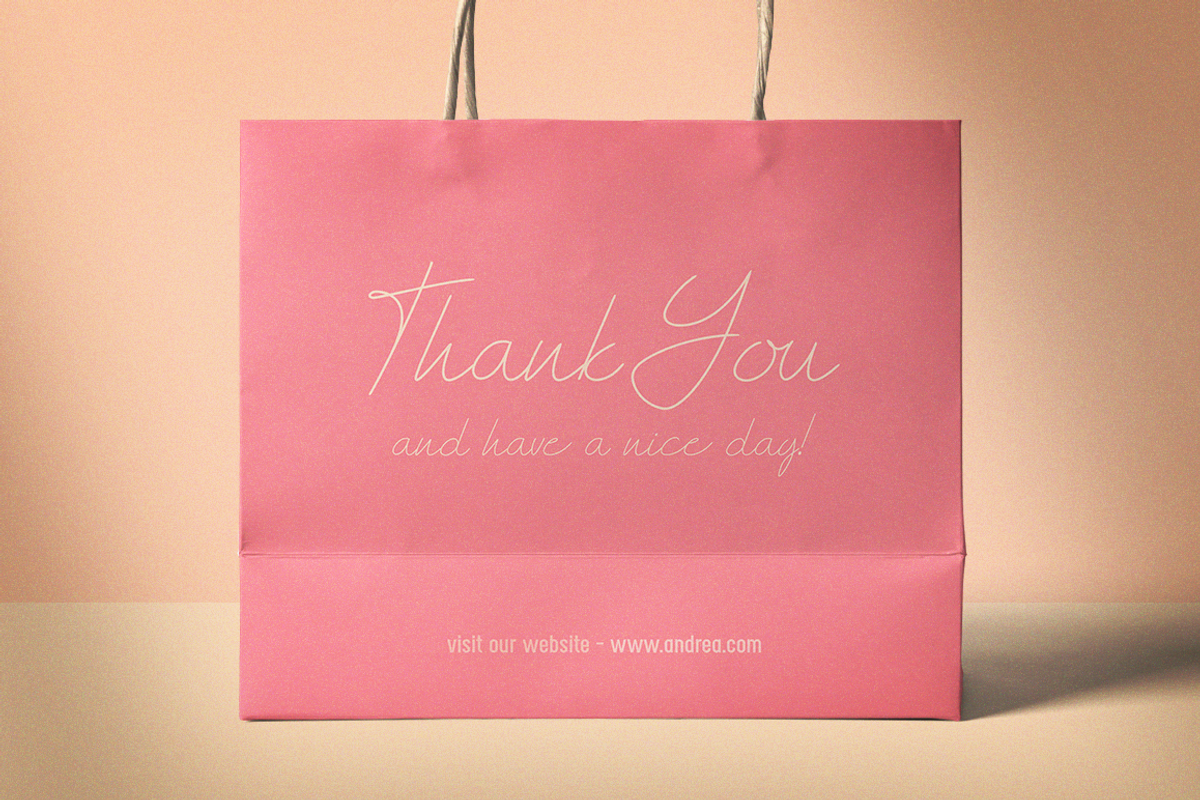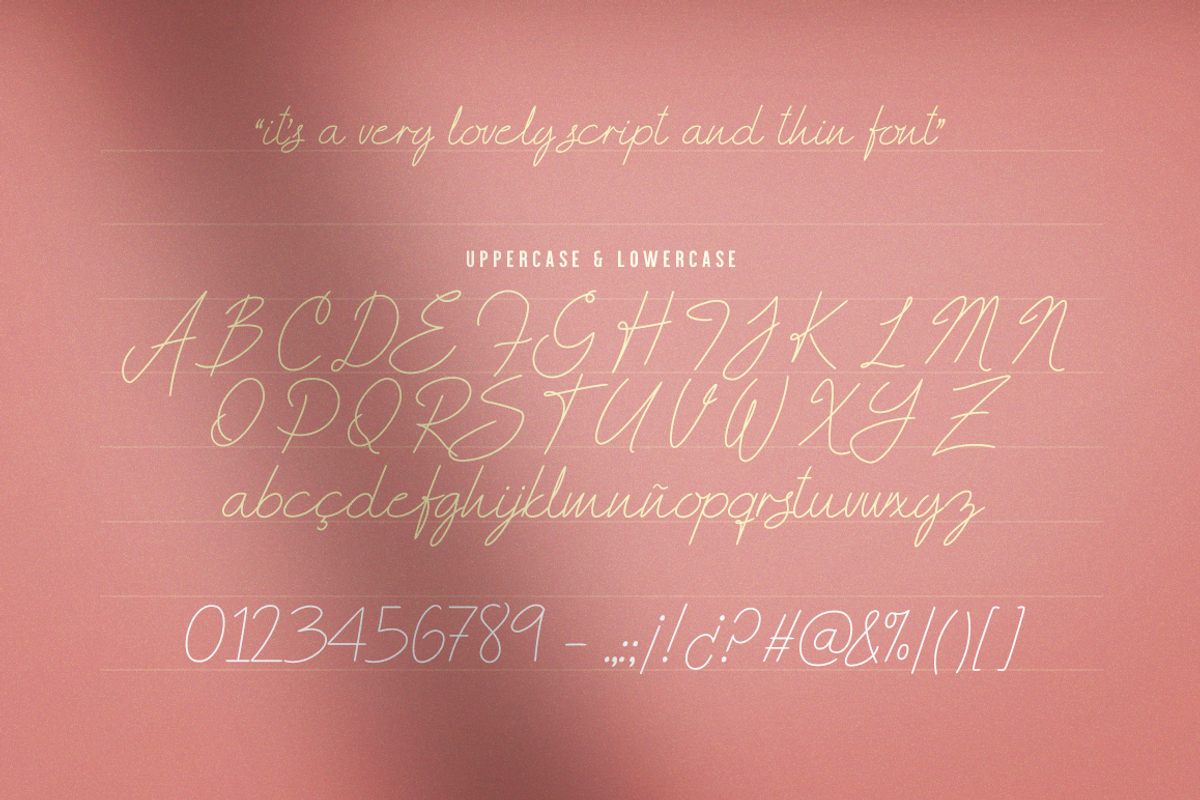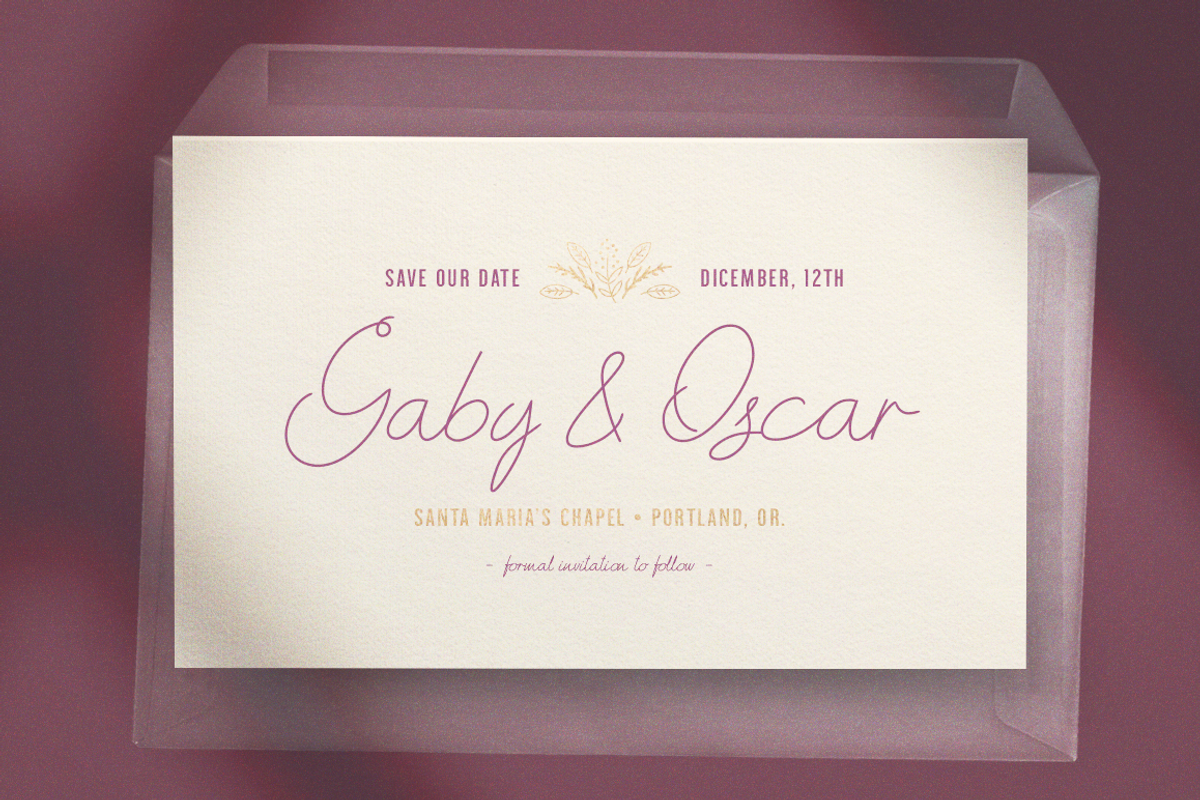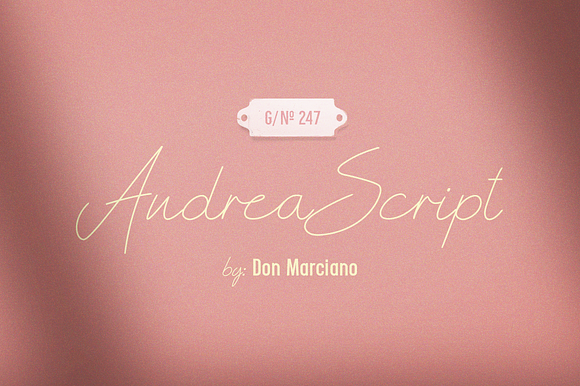
Andrea Script Thin Font
Andrea Script is a Thin weight style font, designed for a wedding invitation with a personal touch, not to fancy and not all over the place, the font is thin, clean and elegant that can adapt to brand development aesthetics, great as the main logo font or as a second font.